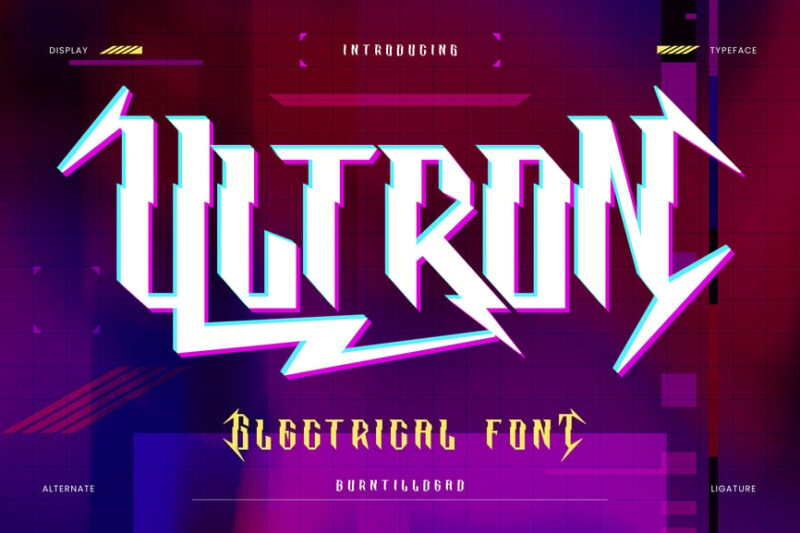
14 Lightning Fonts That ‘Strike’ the Perfect Design Balance in 2026
Picture this: You’re staring at a blank design canvas at 2 AM, desperately trying to capture the explosive energy of a summer music festival or the heart-pounding intensity of a new gaming brand. Regular fonts feel about as exciting as watching paint dry. Then you discover lightning fonts – and suddenly your design doesn’t just communicate, it practically jumps off the screen and grabs people by the collar.
Here’s the thing about lightning fonts: they don’t just display text, they weaponize it. Each letter becomes a jagged bolt of pure visual energy that can instantly transform sleepy designs into attention-commanding powerhouses. Ready to turn your typography from mild-mannered to absolutely thunderous? Let’s dive into the electrifying world of lightning fonts and discover how to harness their raw power in 2026.
The Most Electrifying Lightning Fonts of 2026
Let’s be honest – not all lightning fonts pack the same punch. Some fizzle out like a dying flashlight, while others hit like a bolt from the blue. I’ve curated this collection of the most powerful lightning fonts that are guaranteed to energize your designs:
Thunderion
Thunderion is a powerful display font that embodies the essence of a thunderstorm. Its bold, dramatic letterforms make it an excellent choice for headlines and designs that need to convey strength and intensity.
Ultron
Ultron is a striking futuristic font that incorporates lightning-inspired elements. Its bold and electrifying design makes it perfect for projects requiring a powerful and energetic typographic presence.
Jungle Thunder Font
Jungle Thunder is a decorative font that combines natural and powerful elements. Its design, featuring vector-style graphics, is ideal for creating impactful logos and designs with a wild, untamed aesthetic.
Shock Block
Shock Block is an electrifying neon outline font and solid font duo. Its unique design, inspired by science, vintage horror movies, and neon aesthetics, is perfect for creating eye-catching, eerie typography for horror-themed projects.
Elecstrom
Elecstrom is a storm-inspired display font with a futuristic edge. Its bold, electric design makes it ideal for creating captivating covers and modern, high-impact typography in various design projects.
Helix
Helix is a unique single-line display font that creates a wire-like appearance. Its minimalist, artistic design is perfect for creating elegant and modern typography, especially in projects that require a touch of sophistication.
VOLTA
VOLTA is a vibrant neon light party font in a sans-serif style. Its glowing, lamp-inspired design makes it ideal for creating eye-catching typography for nightlife, events, and party-themed designs.
Thunder Boost Font
Thunder Boost is a dynamic script and handwritten font that exudes energy and power. Its bold, expressive strokes make it perfect for creating impactful typography in various design projects, from logos to headlines.
Turbo Lancer
Turbo Lancer is a high-octane racing font inspired by racing aesthetics. Its sleek and dynamic design makes it an excellent choice for creating powerful logos and typography in automotive and sports-related projects.
Voltstrom
Voltstrom is an electrifying decorative font featuring lightning bolt elements. Its energetic and powerful design is perfect for creating bold, attention-grabbing typography in projects that require a strong visual impact.
Dark Thunder
Dark Thunder is a bold sans-serif font with a powerful presence. Its strong, imposing letterforms make it ideal for creating impactful headlines and typography in projects that require a sense of strength and intensity.
Glitch Blazing Font
Glitch Blazing is a decorative glitch font that incorporates distorted, glitch-like elements. Its unique, authentic design is perfect for creating edgy and modern typography in projects that aim to convey a sense of digital disruption or chaos.
RACING HARD
RACING HARD is a bold decorative font inspired by the world of motorsports. Its strong, constructed letterforms make it perfect for creating high-impact typography in racing-themed designs and sports-related projects.
Robot Ultra
Robot Ultra is a futuristic decorative font with an AI-inspired design. Its sleek and modern appearance makes it ideal for creating cutting-edge typography in technology-related projects and forward-thinking designs.
What Makes Lightning Fonts So Electrifying?
Lightning fonts get their high-voltage personality from several key design elements that work together to create that unmistakable electric aesthetic: